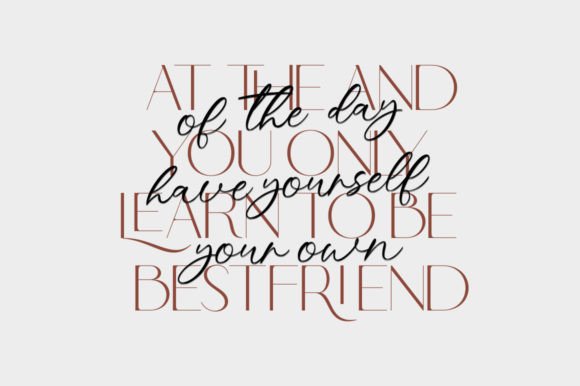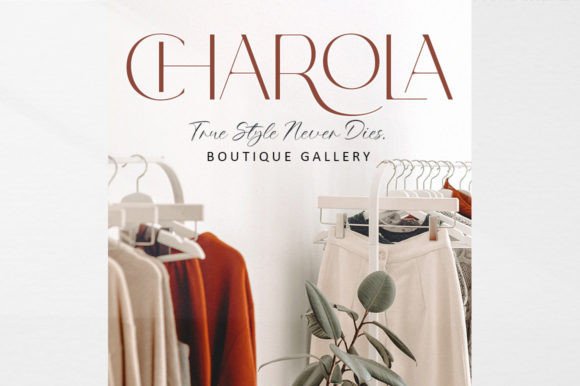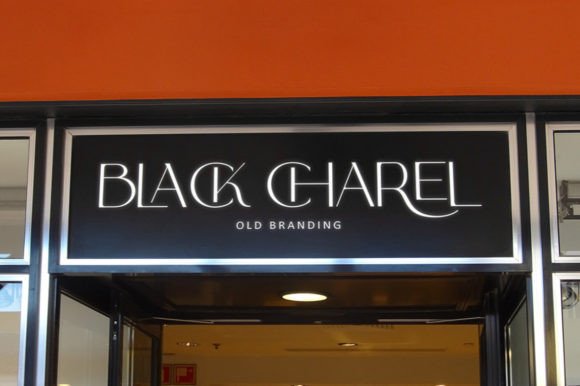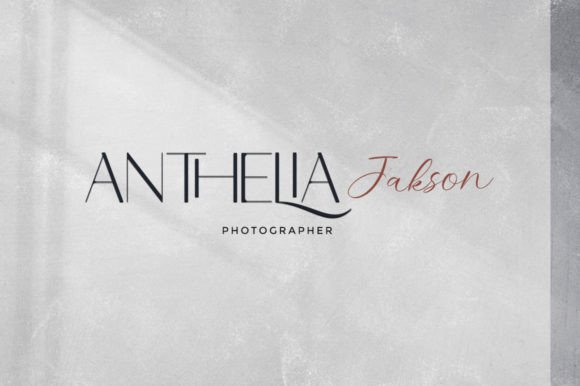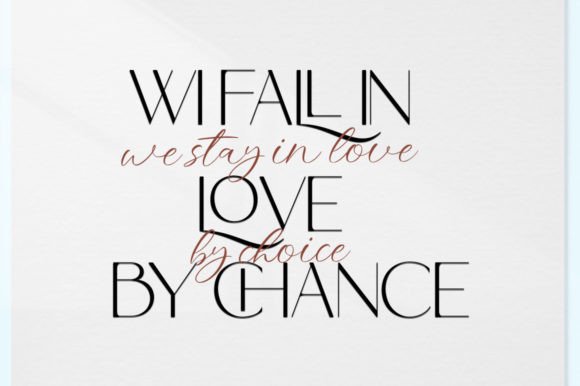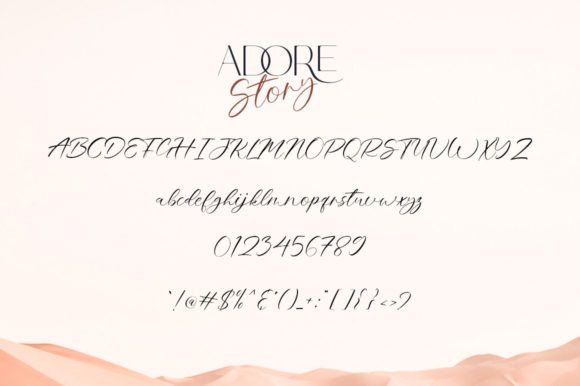
Unlocking the Secrets of Luxury Design with Adore Story Font
Have you ever stared at a blank design canvas, feeling like you’re missing that one special element to elevate your project to the next level? That’s exactly how I felt when I first discovered the Adore Story Font combination. This exquisite duo of a chic sans-serif and elegant script font is a game-changer for designers who crave a sophisticated and modern look.
Whether you’re crafting logos, packaging, or social media graphics, the Adore Story Font is the perfect addition to your design arsenal. Its PUA encoded nature makes it effortless to access all glyphs and swashes, allowing you to create stunning, high-end designs with ease. With the Adore Story Font, you can infuse your projects with a touch of luxury and refinement that’s sure to leave a lasting impression.
Key Features of Adore Story Font
- Font Size: The font family consists of multiple weights, ranging from Thin (100) to Black (900), providing flexibility for various design applications.
- Unique Characteristics: The font features a modern, elegant script design with a unique flair, making it ideal for creating eye-catching headlines, titles, and other display typography.
- Font Style: The font is available in both regular and italic styles, allowing for added versatility in design applications.
Adore Story Font Review
I’ve had the chance to work with the Adore Story Font, and overall, I’m quite impressed with its aesthetic appeal. ✨ The font’s elegant script style gives it a romantic and whimsical feel that’s perfect for wedding invitations, greeting cards, or any project that requires a touch of sophistication. ✨ The font’s connectivity and flow make it easy to read and visually appealing, even at smaller font sizes.
One of the standout features of Adore Story Font is its versatility. It comes in a range of weights and styles, allowing designers to experiment with different looks and feels. ✨ The font also supports a wide range of languages, making it a great option for projects that require multilingual support.
While the Adore Story Font is a great addition to any designer’s toolkit, there are a few limitations to be aware of:
- ⚠️ The font may not be as effective for projects that require a bold or dramatic look. Its elegant script style can sometimes come across as too soft or delicate.
- ⚠️ The font’s connectivity can make it difficult to use in situations where you need to emphasize specific words or phrases.
Overall, I’m very pleased with the Adore Story Font. While it may have some limitations, its unique style and versatility make it a great addition to any designer’s toolkit. With a little creativity and experimentation, I’m confident that designers can get the most out of this beautiful font.
Adore Story Font is ideal for:
- Photography captions and quotes
For optimal results, use Adore Story Font in combination with elegant graphics and images.
Alternatives to Adore Story Font
Great Vibes Font is a modern, elegant script font that is ideal for creating a sophisticated and professional look. It is a great choice for designers who want to add a touch of luxury and sophistication to their designs. Great Vibes Font has a similar feel to Adore Story Font, but with a more refined and polished look. It is perfect for use in branding, advertising, and editorial designs.
Carolyna Pro Font is a modern, elegant script font that is designed to add a touch of elegance and sophistication to designs. It has a similar feel to Adore Story Font, but with a more relaxed and casual vibe. Carolyna Pro Font is perfect for use in branding, advertising, and editorial designs, and is especially well-suited for use in social media and marketing materials.